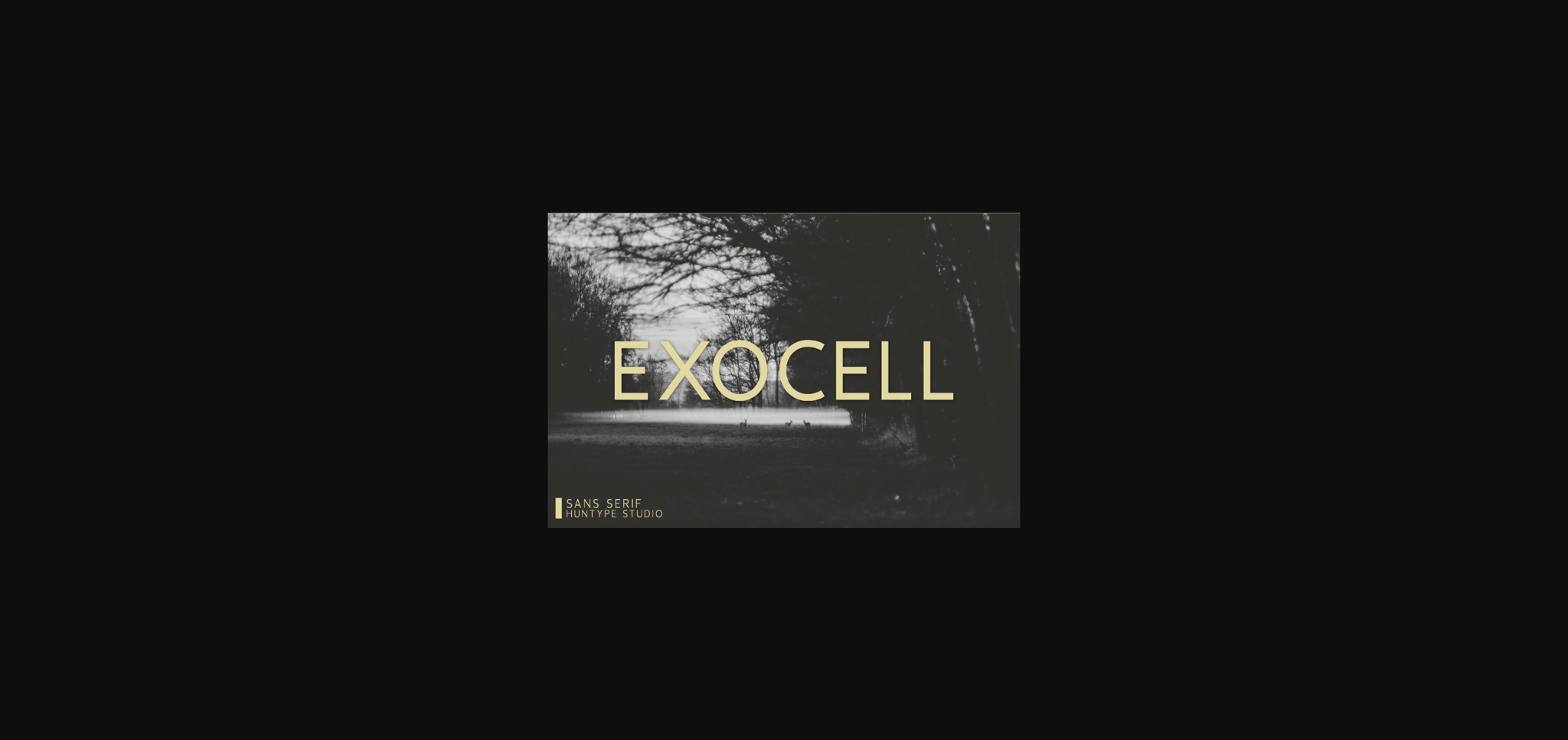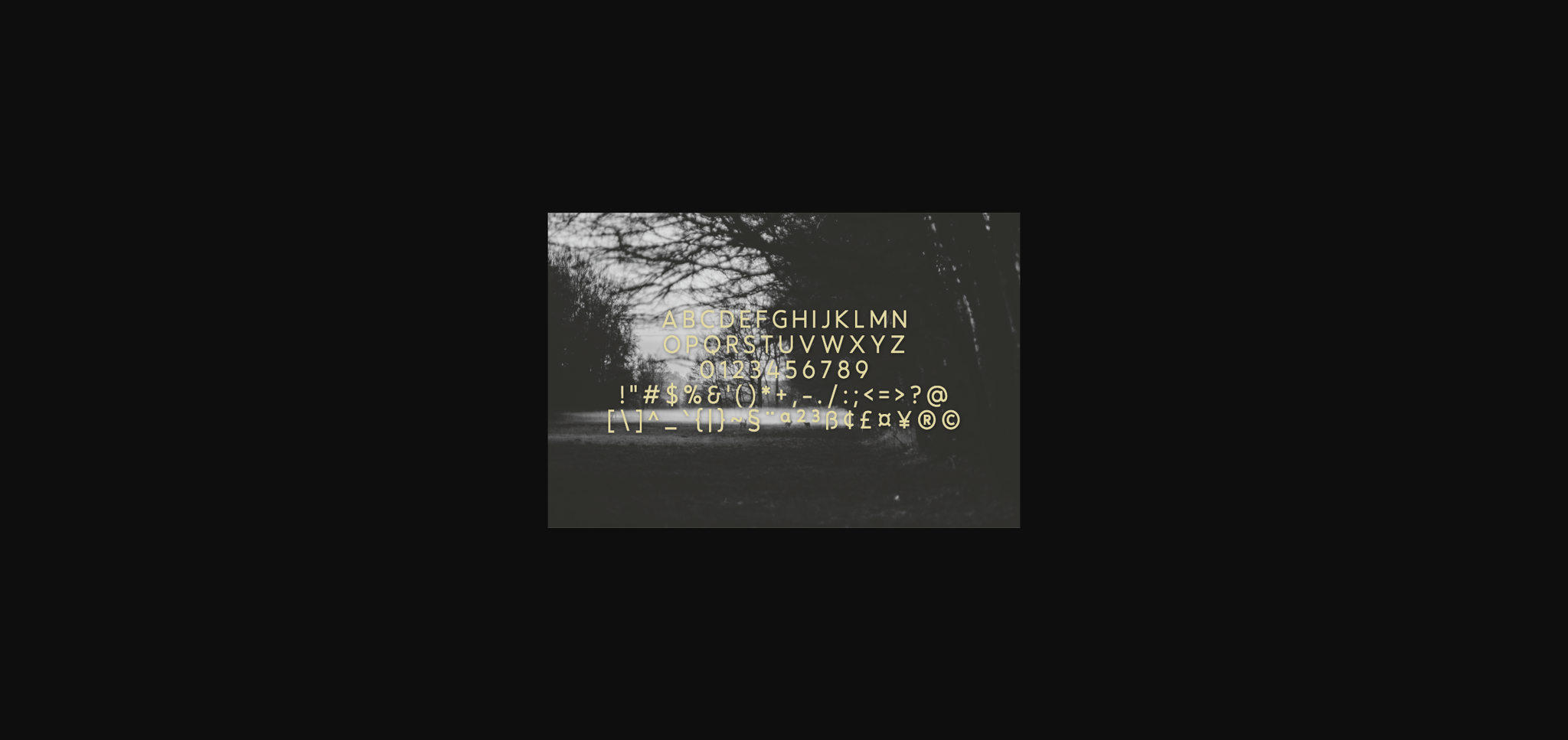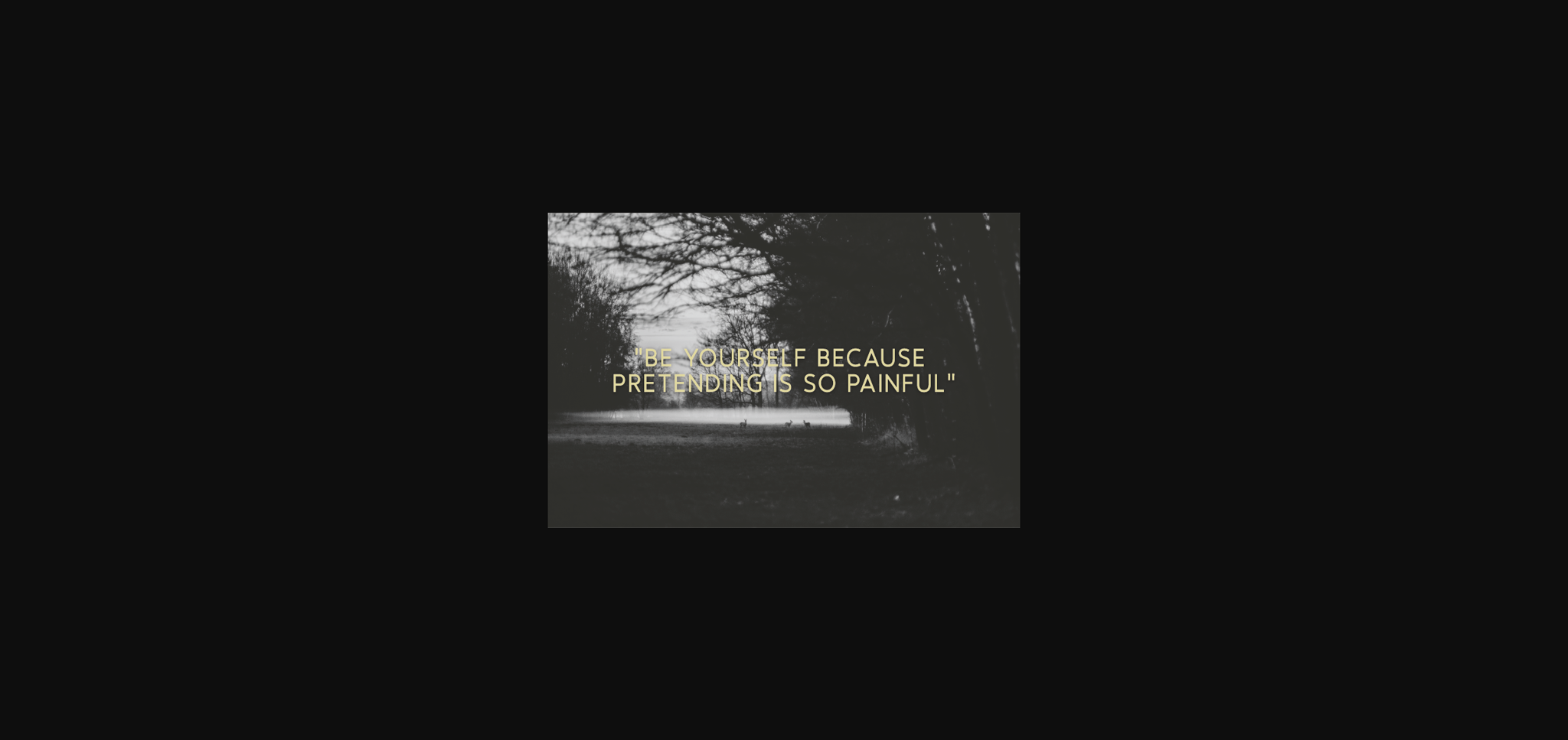
HomeSans Serif FontsExocell Font Sans Serif Fonts Exocell Font FacebookXPinterestWhatsApp 1 of 5 ... Exocell Font Poster 2... Exocell Font Poster 3... Exocell Font Poster 4... Exocell Font Poster 5... About Exocell Font Exocell is a neat and simple sans serif font. It has a clean, thin and smooth vibe and it will be a hit for any design that you want to add it to. DOWNLOAD NOW People also explored Beautiful Girl Font Happy Hour Doodles Tingtone Font Christmas Minimalist Font Realistic Shadow Mockups Osmane Font Seriously Font Lupines Font Wonderful Christmas Font 379 0 TagsExocellExocell Font Previous articleEthern FontNext articleDeepfly Font LEAVE A REPLY Cancel reply Comment: Please enter your comment! Name:* Please enter your name here Email:* You have entered an incorrect email address! Please enter your email address here Website: Save my name, email, and website in this browser for the next time I comment. Personal Use Free Milda Personal Use Free Read more about this font Zero Panzer Personal Use Free Read more about this font Fuixg Personal Use Free Read more about this font The Fourth Avenue Personal Use Free Read more about this font BLOG To increase your work productivity, choose the most readable fonts. In today's fast-paced work environment, where digital communication and information consumption are integral to our daily routines, the choice of fonts can significantly impact... Free Fonts Risk: Why Free Fonts Can Be Dangerous for Designers Free vs Paid Fonts: Why Investing in Premium Fonts Is Worth It Elegant Wedding Invitation Fonts – Handwritten & Script Fonts